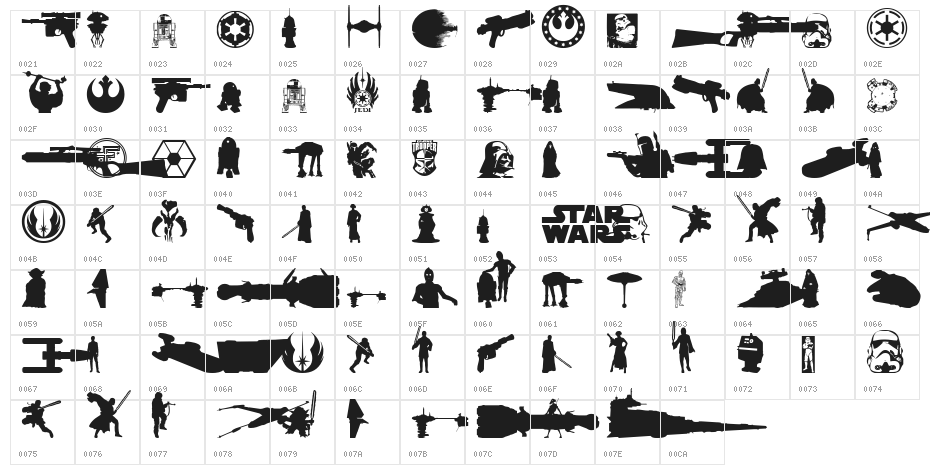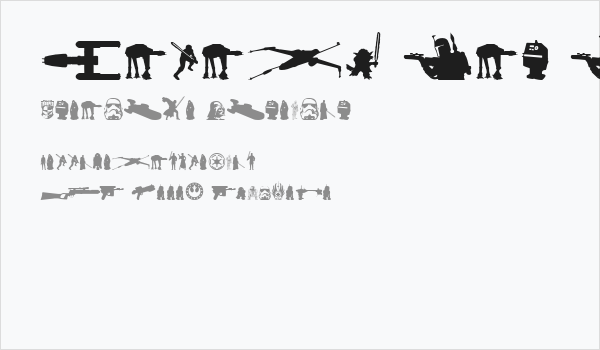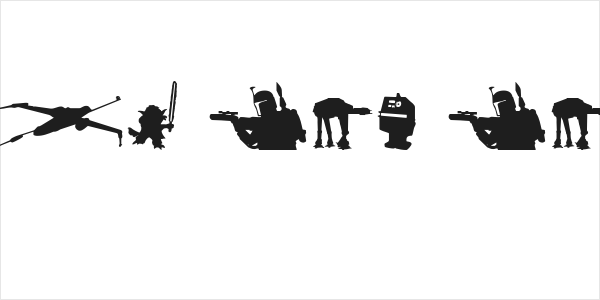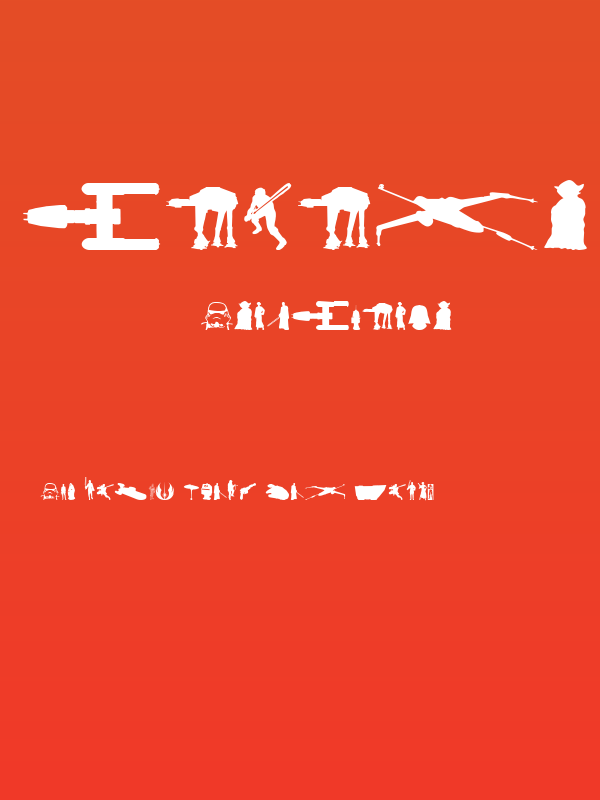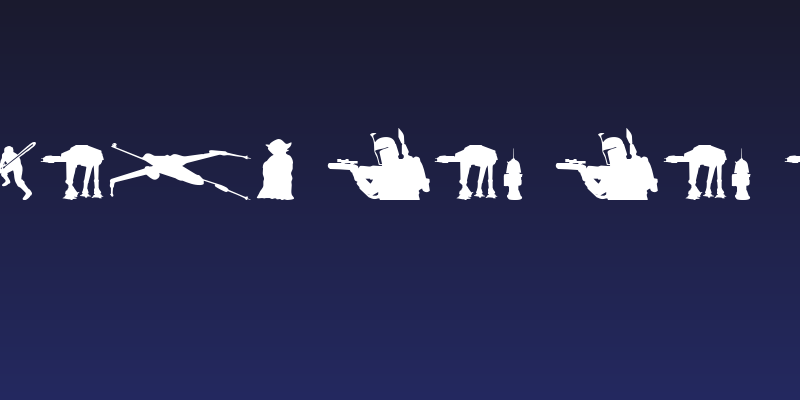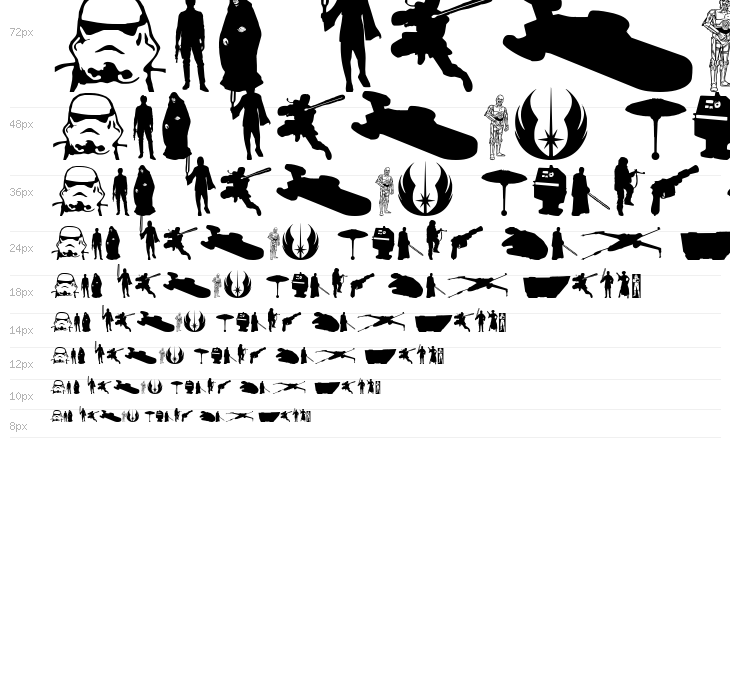
Galaxy Far Far Away Font
Galaxy Far Far Away Description
This is not a traditional font but rather a collection of iconic silhouettes and symbols from a popular science fiction universe. The images include various characters, vehicles, and logos that are instantly recognizable to fans. Each symbol is rendered in a bold, solid black style, making them suitable for use as decorative elements or thematic embellishments. The collection captures the essence of the universe it represents, offering a visual language that speaks to the epic and adventurous nature of the stories. These symbols can be used to create themed designs, posters, or merchandise that resonate with fans.
| Use Case | Logos, Decorative elements |
| Proposed Projects | Ideal for themed designs, fan merchandise, posters, and decorative elements. |